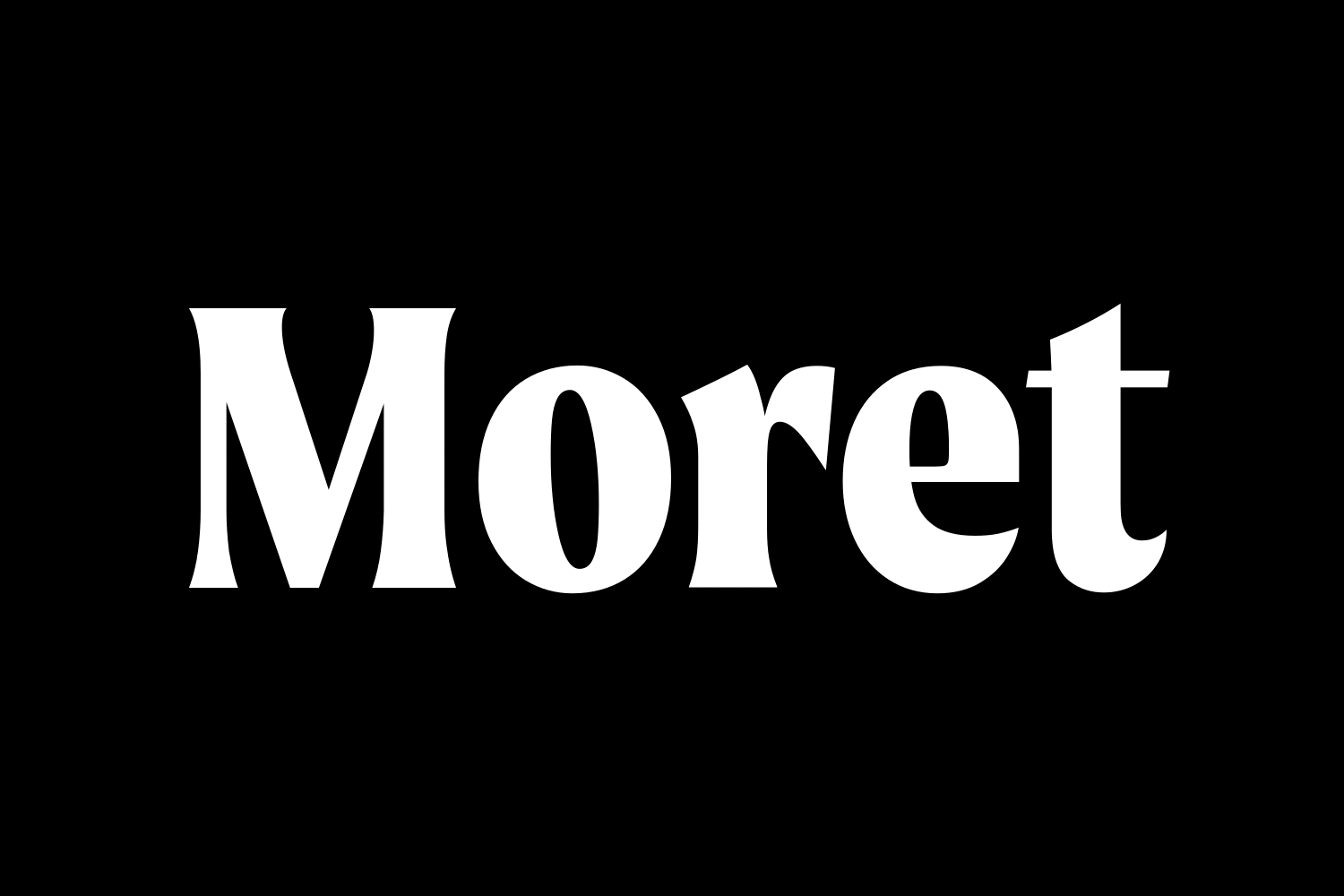
Moret is a serif display type family inspired by 20th-century European sign painting. It blends several calligraphic concepts to create a unique, dynamic, and emphatic typeface. Available in five weights and two styles (upright and oblique), Moret is well-equipped to provide clear solutions for a variety of situations and settings, such as editorials and headlines.
Each font includes 466 glyphs and supports over 265 Latin-based languages. OpenType features include inferiors, superiors, fractions, tabular figures, and ligatures.
Moret is a serif display type family inspired by 20th-century European sign painting. It blends several calligraphic concepts to create a unique, dynamic, and emphatic typeface. Available in five weights and two styles (upright and oblique), Moret is well-equipped to provide clear solutions for a variety of situations and settings, such as editorials and headlines.
Each font includes 466 glyphs and supports over 265 Latin-based languages. OpenType features include inferiors, superiors, fractions, tabular figures, and ligatures.